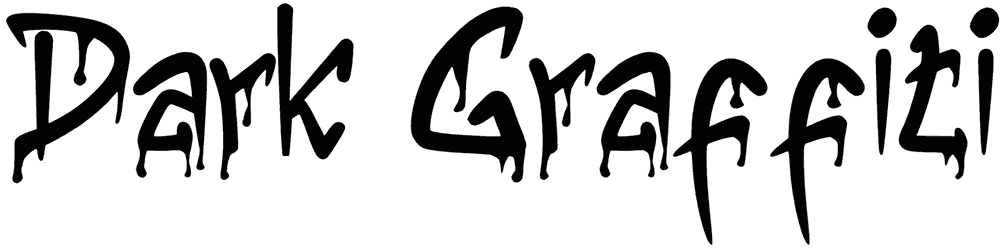
Dark Graffiti Font
Dark Graffiti font creates an enveloping effect that attracts the eye with how each letter drips off the page. This dripping font has a certain fluidity that can bring your creative process to the best results.
This graffiti font is excellent for logos, headlines, posters, and social media posts, because it’ll surely make your message stand out from others. So if you’re looking for a rebellious spirit that challenges the status quo and dares to be different, add this script font.